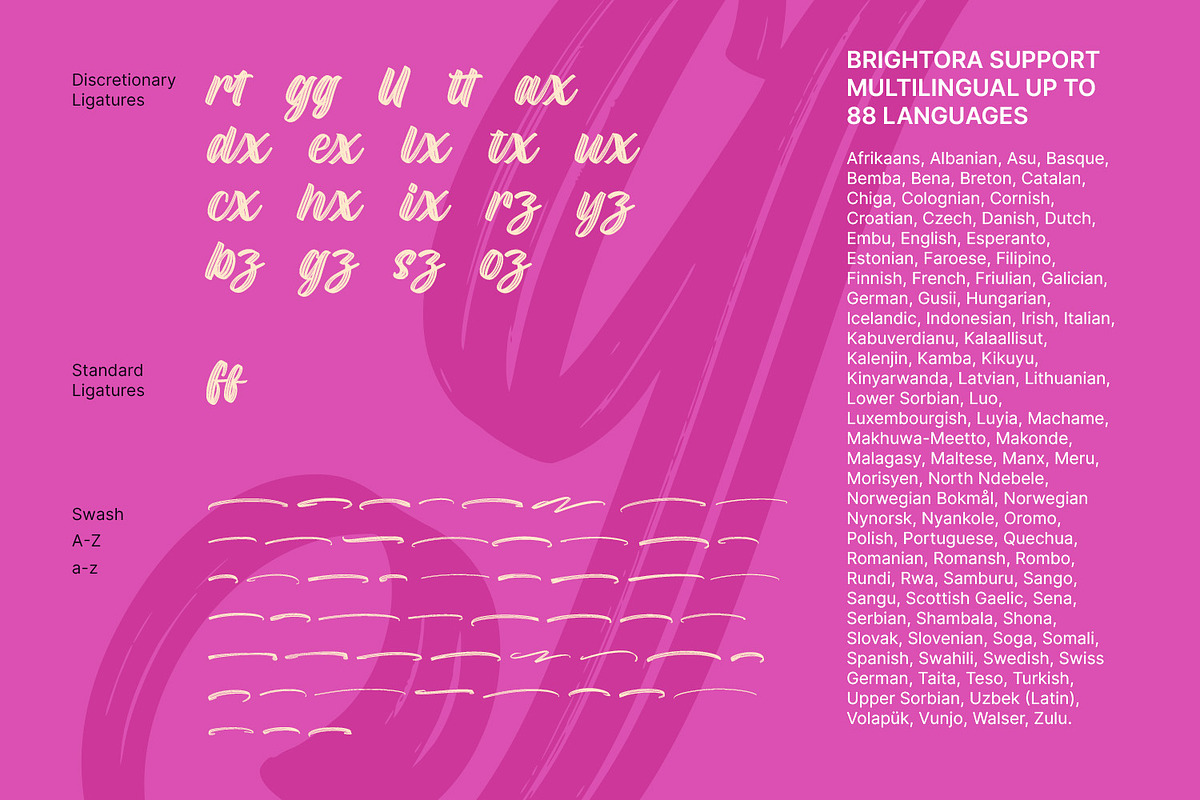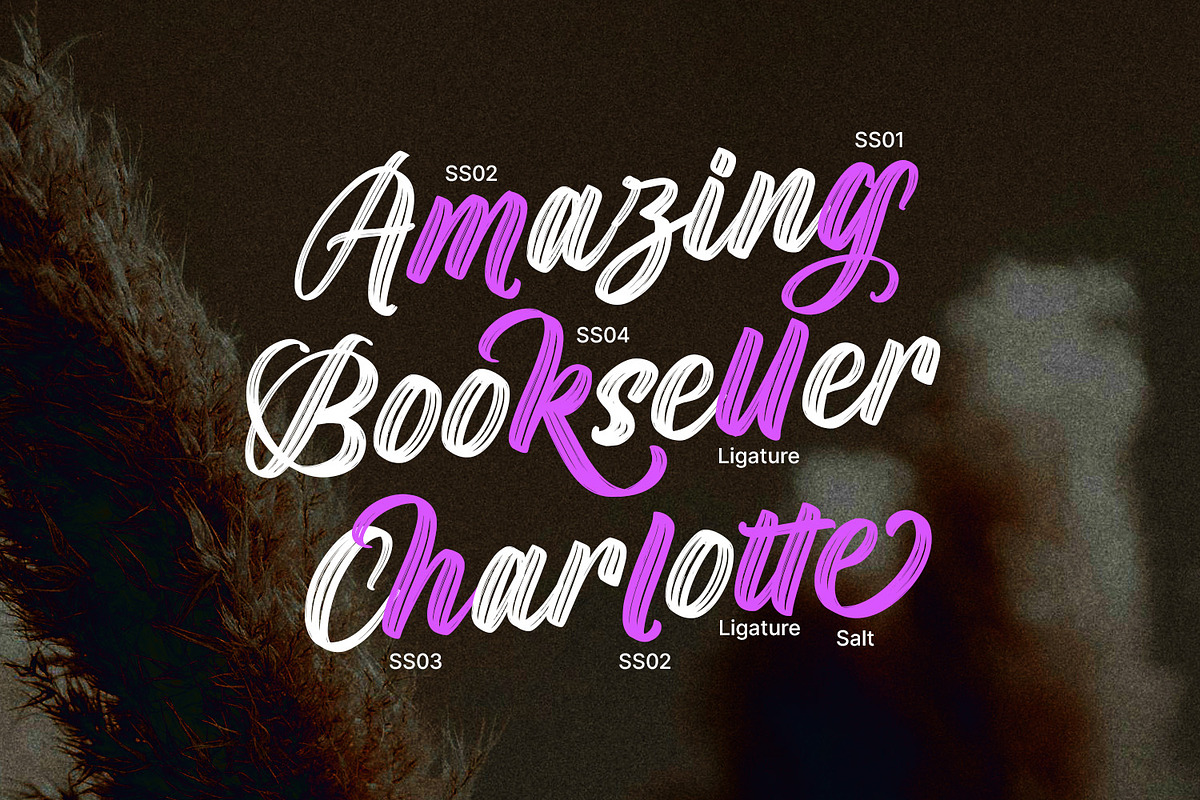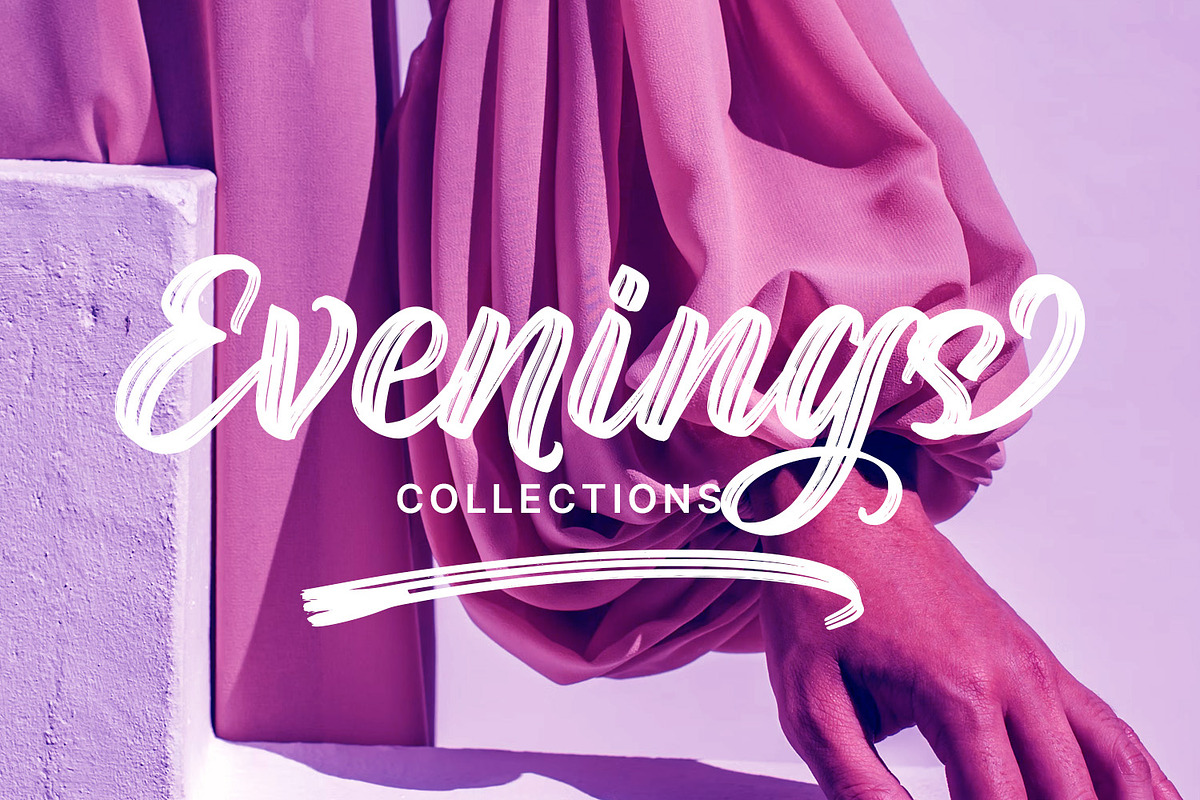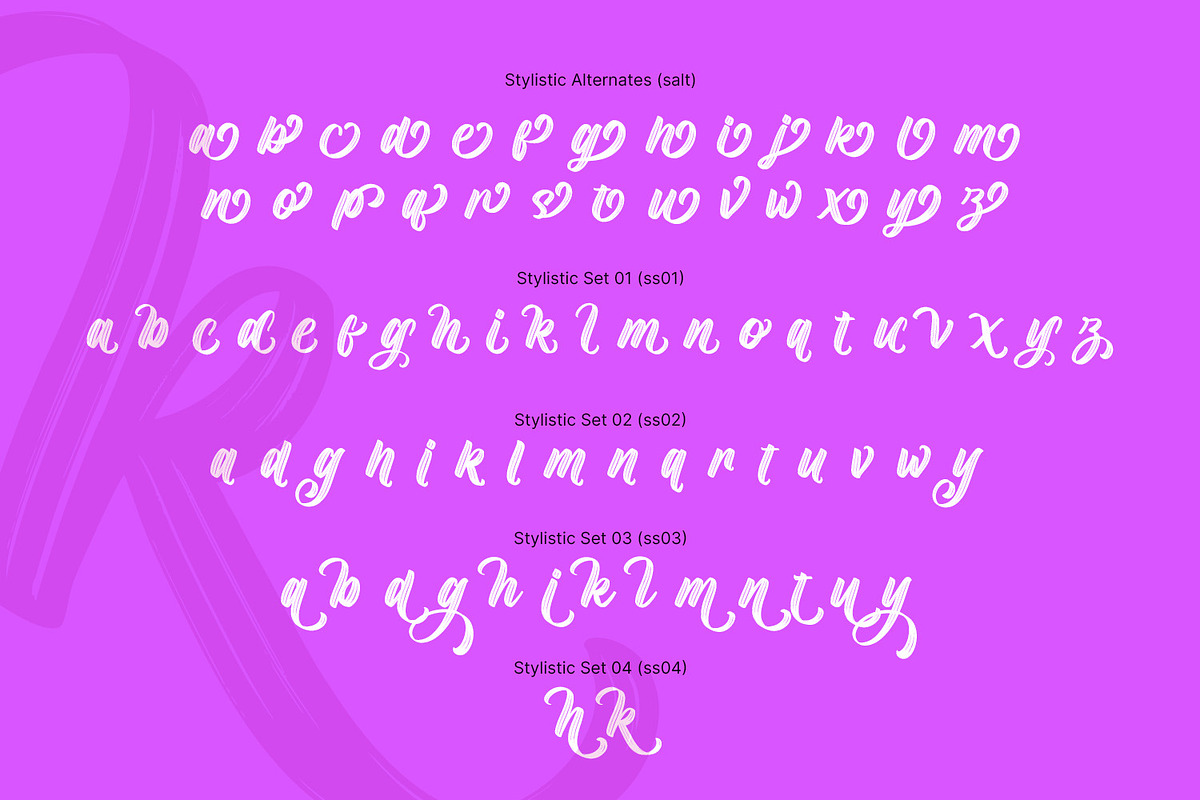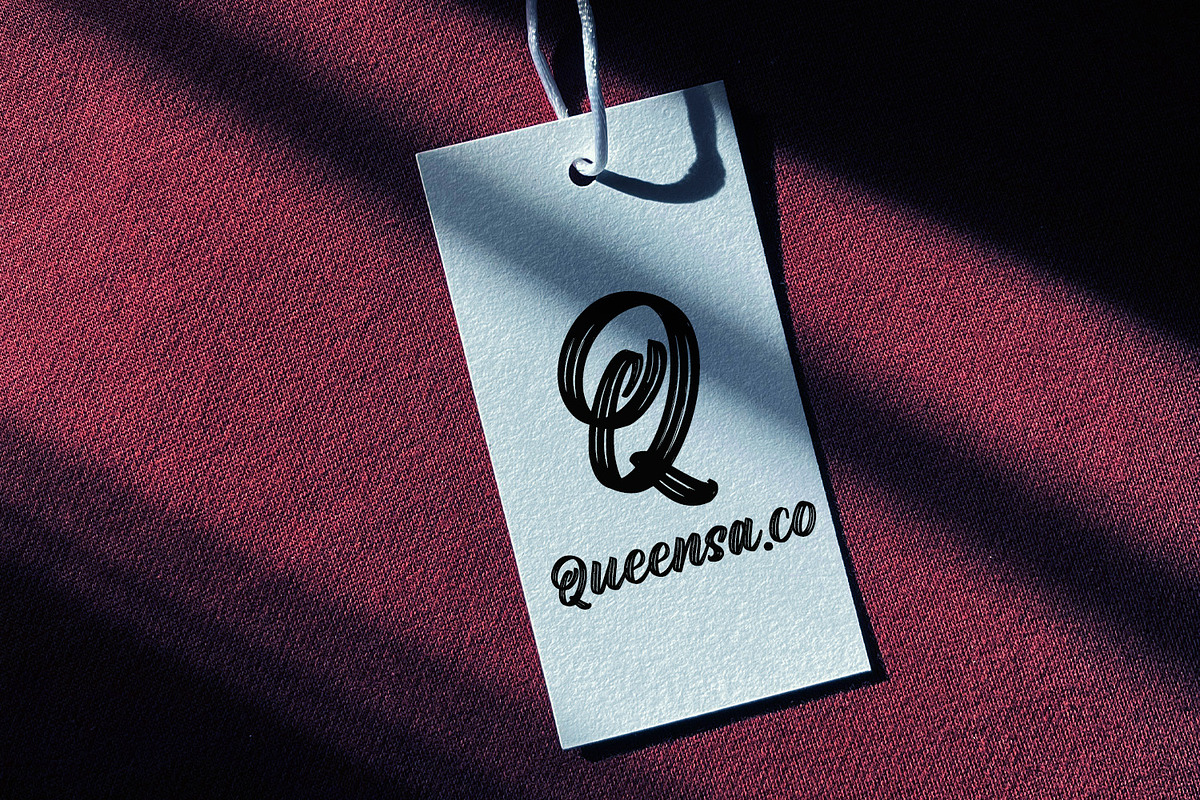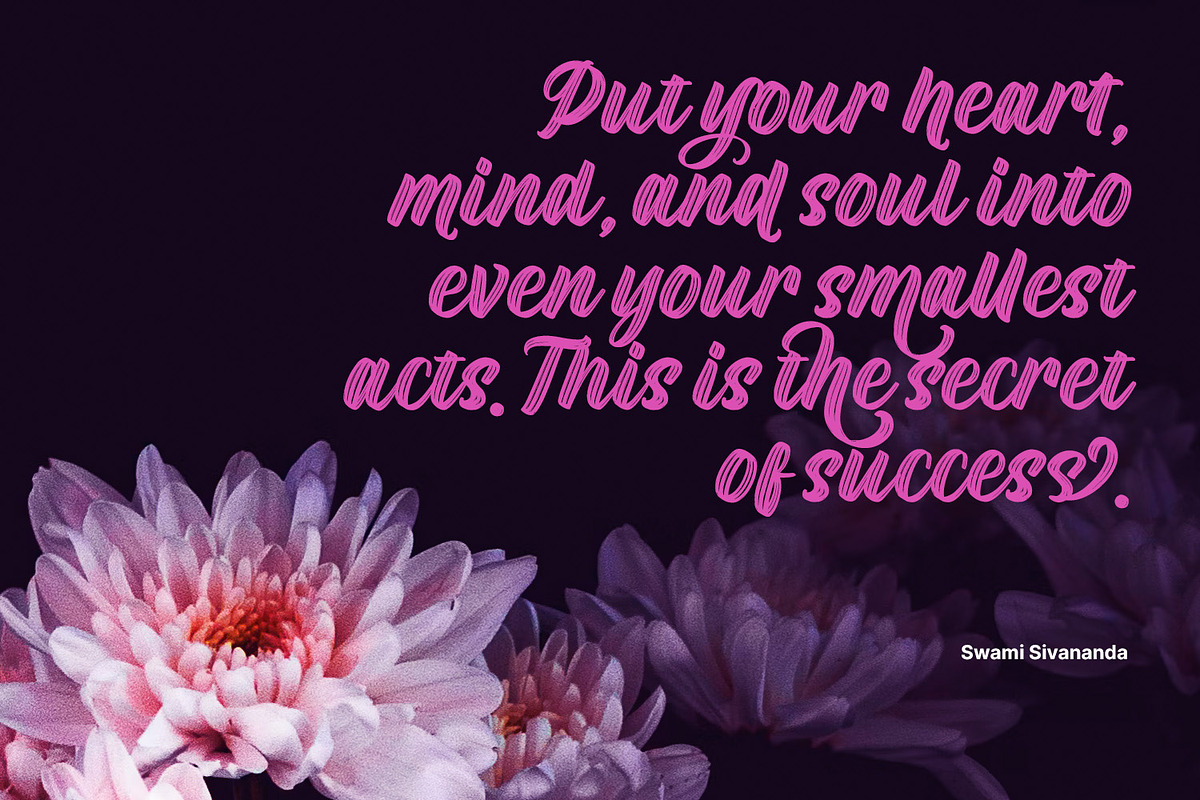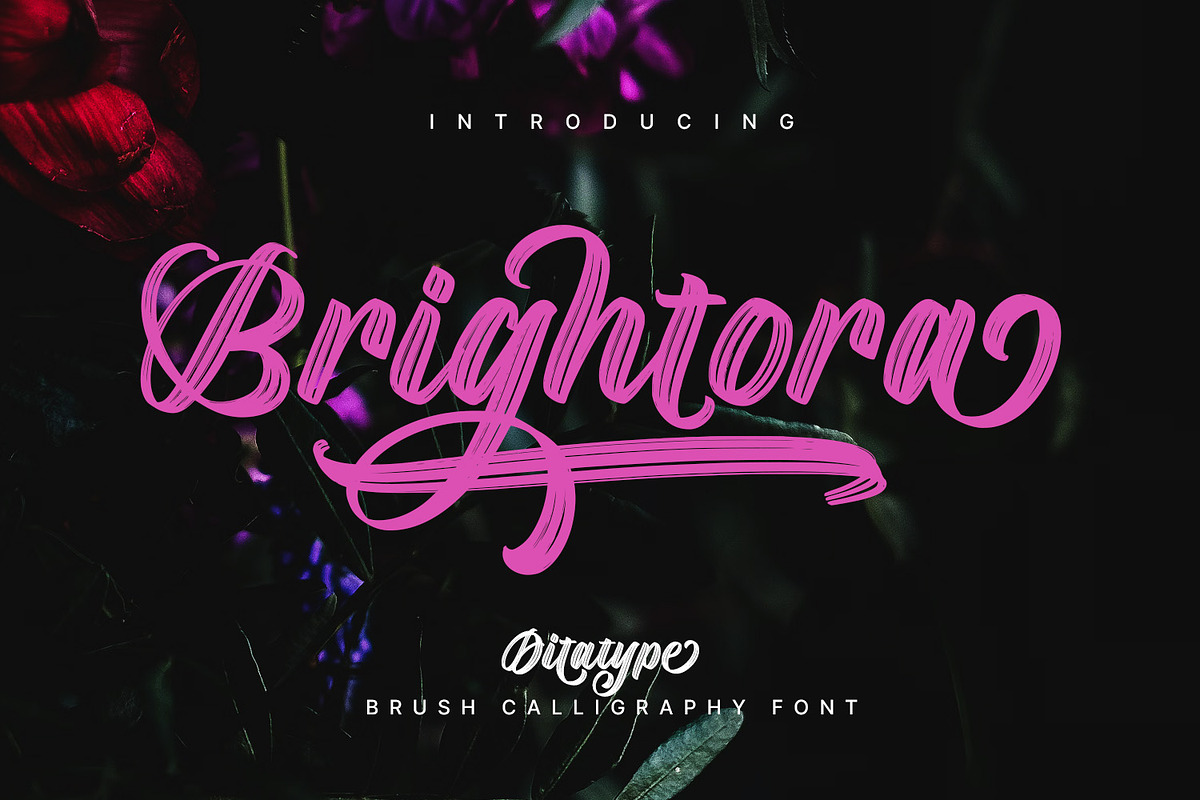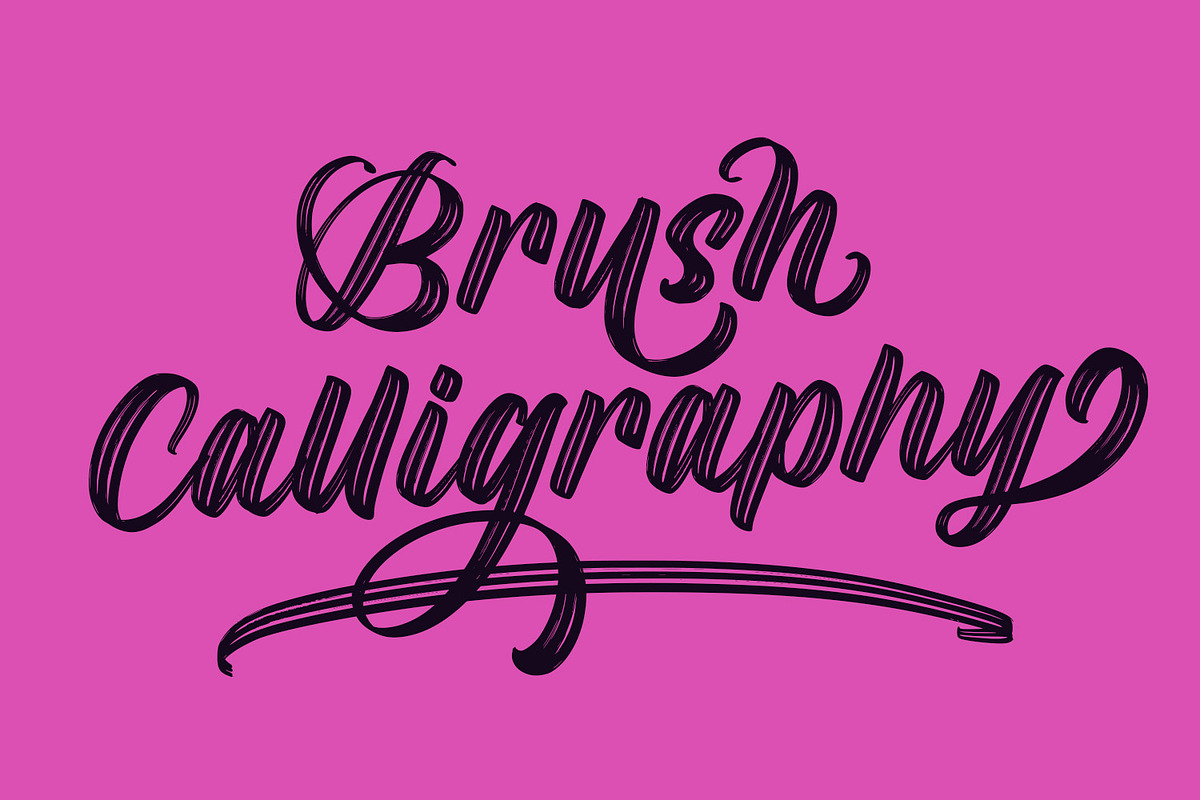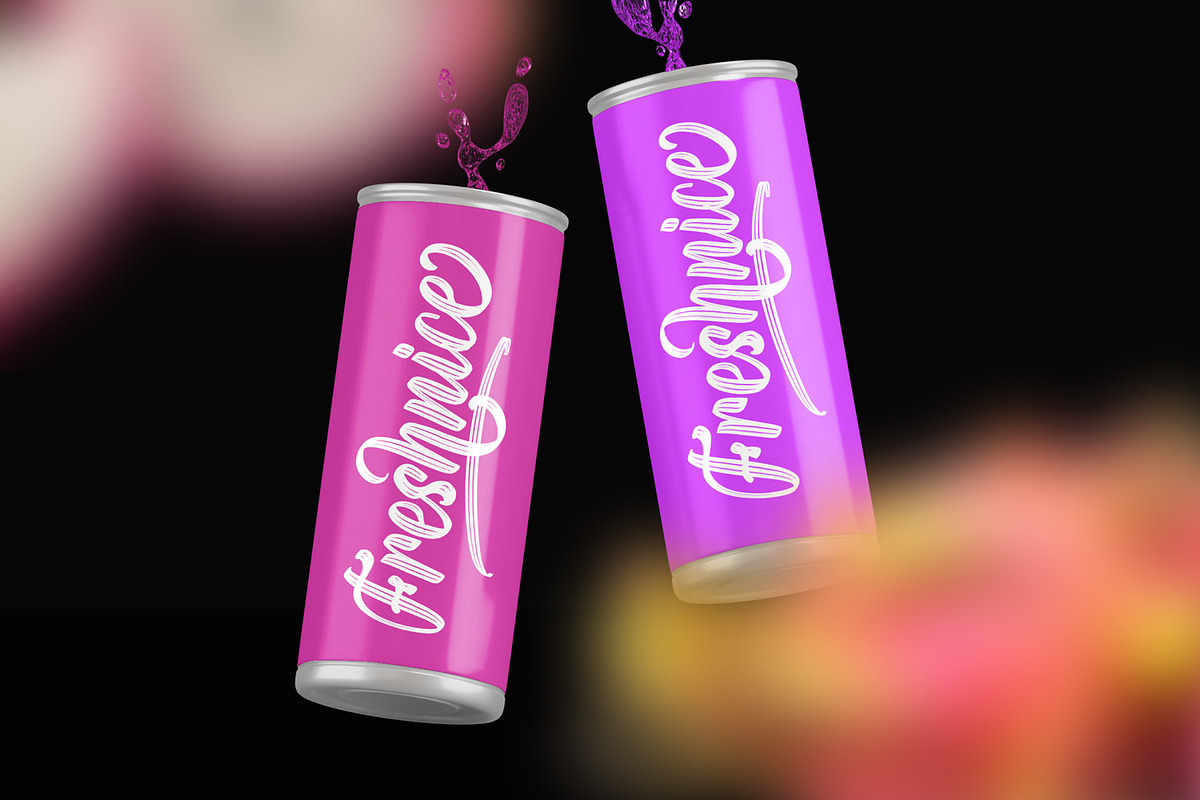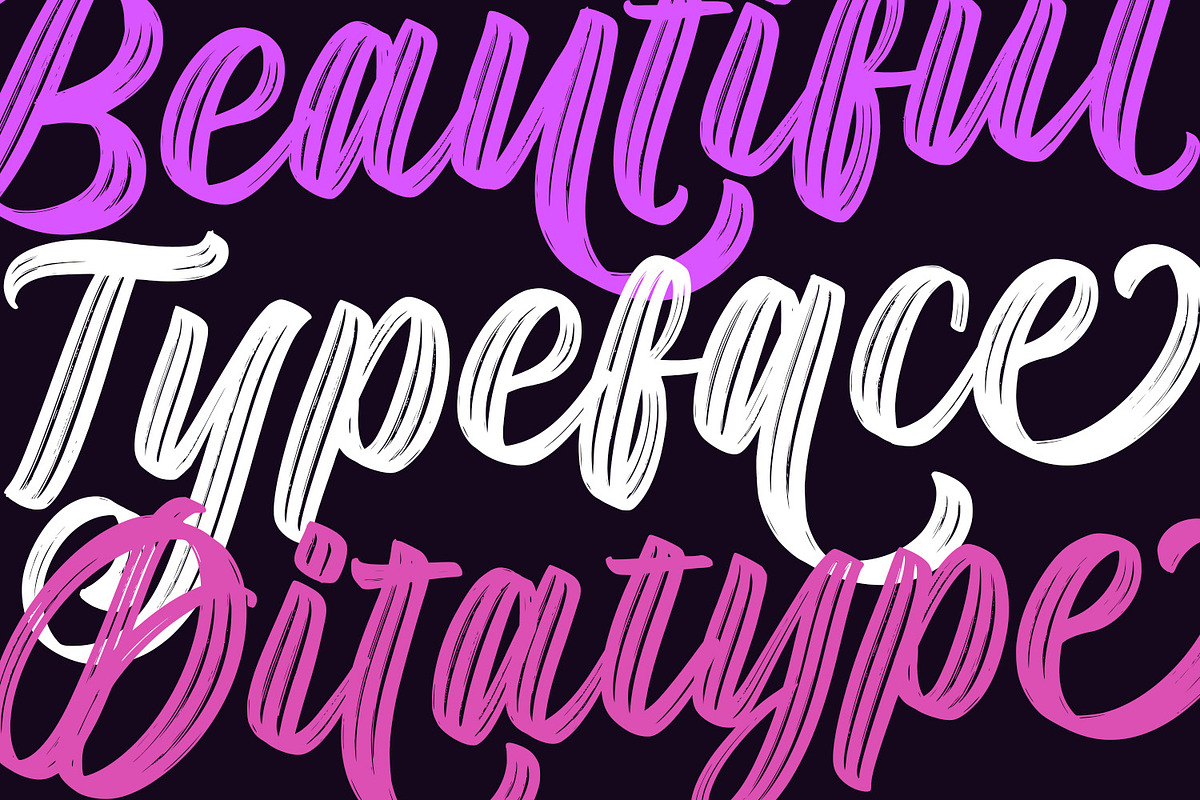
Brightora
Brightora is a bold vintage-style calligraphy brush font that captures the charm of handcrafted lettering. Its sweeping strokes and textured details evoke the authentic feel of traditional brush calligraphy, while the bold weight adds strength and character. Brightoria blends timeless elegance with artistic energy, making every word stand out with a touch of vintage sophistication. In addition, enjoy the features here.
- Stylistic Sets
Brightora fits in name cards, branding, packaging, posters, headlines, editorial designs, and many more designs. Find out more ways to use this font by taking a look at the font preview.